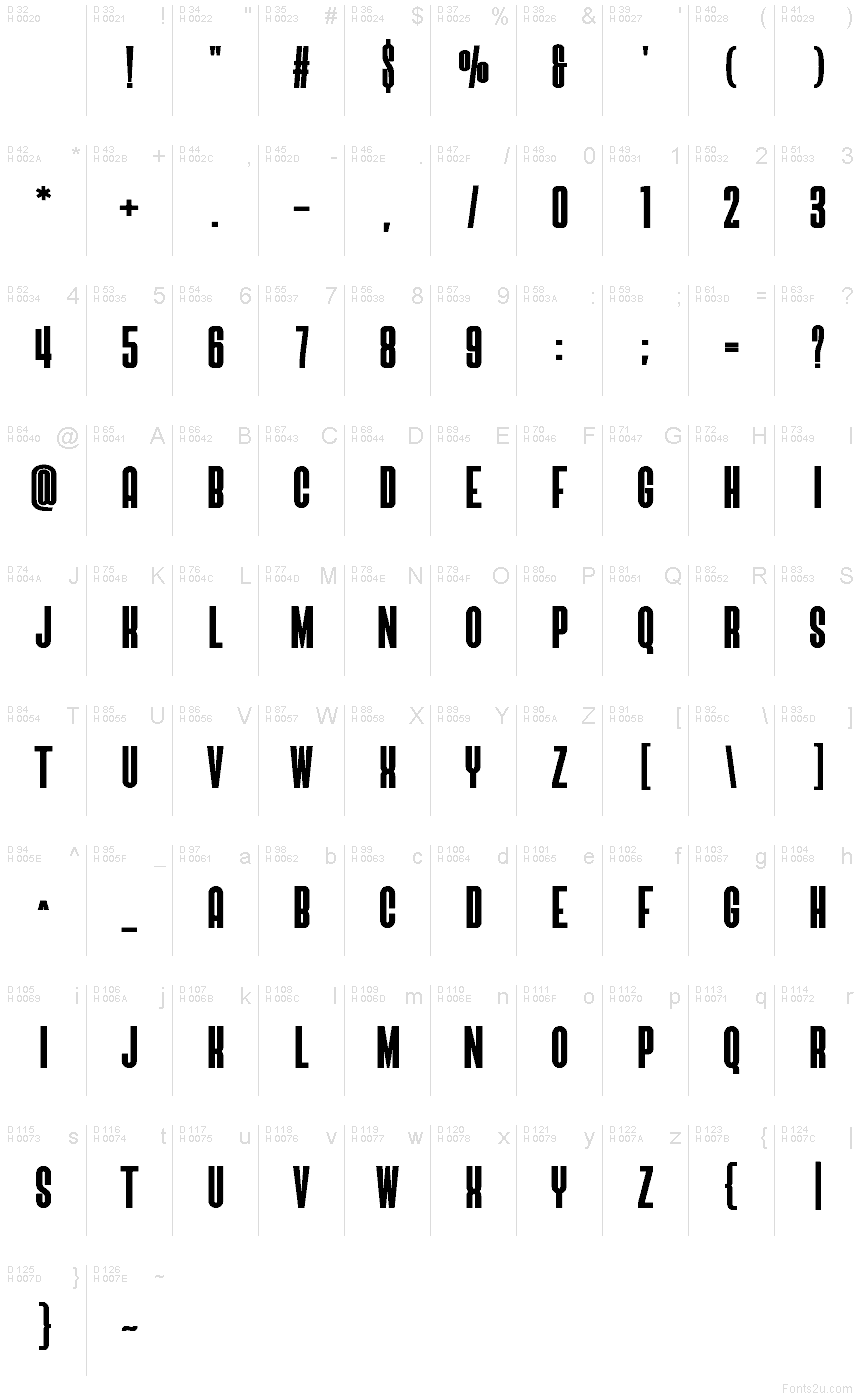
Brich
Brich font by Graphicxell is a free ultra‑condensed sans serif font. When headline space is tight but you still want impact, Brich compresses words into a tall, commanding block with hefty strokes and rounded inner corners that keep the mass from feeling harsh. Its rhythm is straight-up-and-down and steady, so even long titles stack neatly without visual wobble.
Using Brich, you can punch up posters, banners, album covers, sports branding, packaging, event flyers, and bold social graphics. The narrow build lets you go big without wrapping; add a touch of tracking at large sizes for extra clarity. This free font pairs naturally with a lighter, wider sans for body copy to balance its dense verticals.